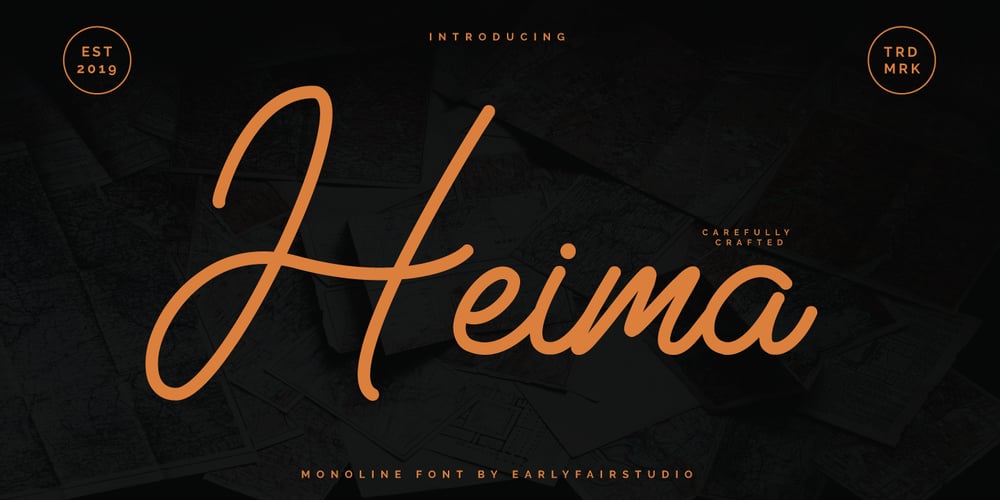
Heima
Heima font
Heima Font Family was designed by Fahmi Huzaini and published by Earlyfair Studio. Heima contains 1 styles and family package options. Heima is a sweet and simple handwritten font with a cool charm. Get inspired by its unique charm!